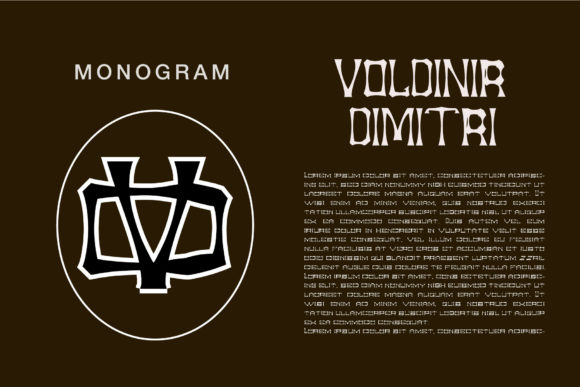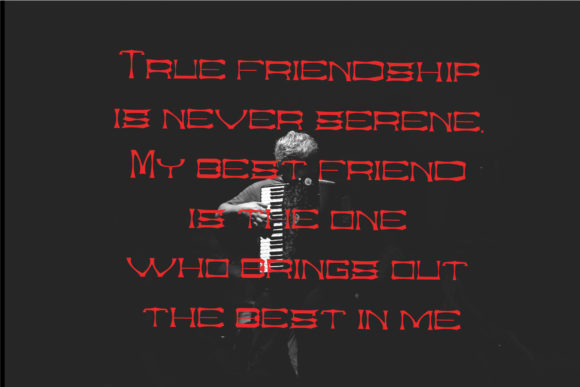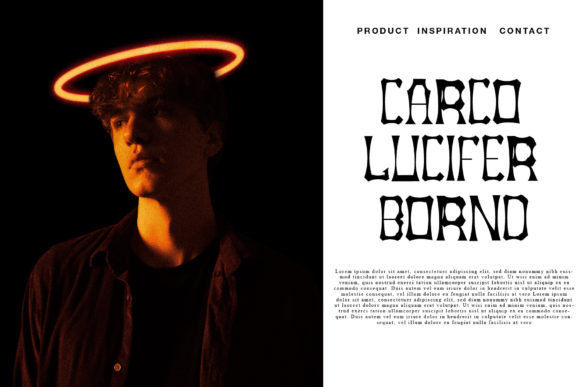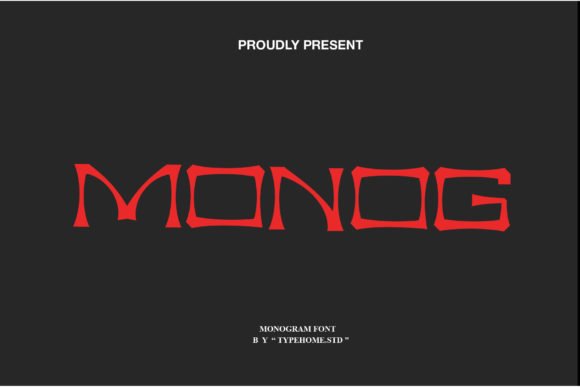
Introduction to Monog Font
Monog is a cool, geometrically shaped and western looking display font.
This unique font will effortlessly turn any design project into a stand out .
Monog Font offers exceptional quality and versatility, making it a valuable addition to your design toolkit. Whether you’re creating for personal projects or commercial use, Monog Font delivers professional results.